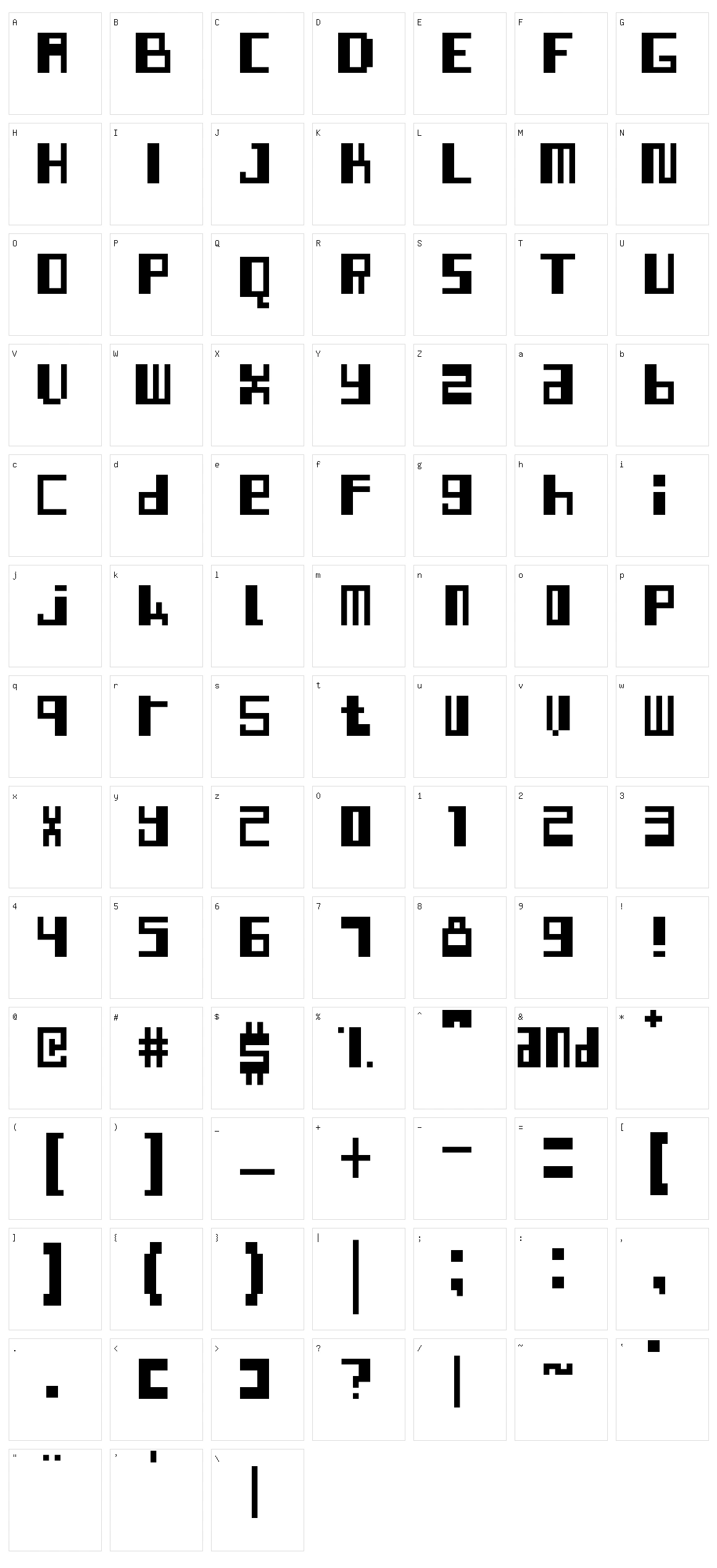
The free font Indo-Malay Confrontation is carefully designed by Adien Gunarta, showcasing a thoughtful balance of creativity and usability and falls under the Square font style. When you download the ZIP file, it contains only 5.07 KB of font files, making it lightweight and quick to download. Please review the license details below to understand permitted usage and distribution rights. If license information is not available, we recommend using this font for personal projects only or contacting the author directly for commercial usage permissions.